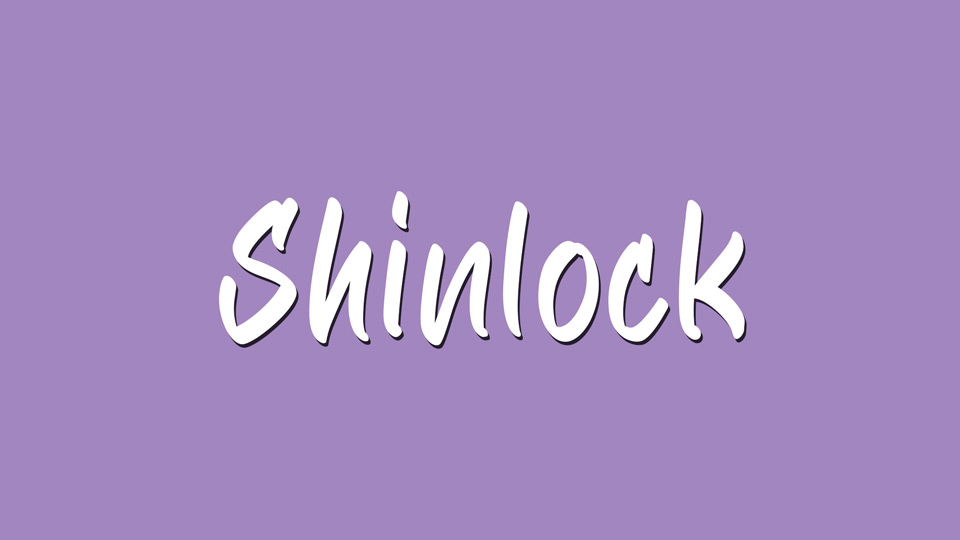
Download Shinlock font, a simple hand drawn brush typeface made with real marker pens. With its organic and natural look, Shinlock font is ready to make a big impression.